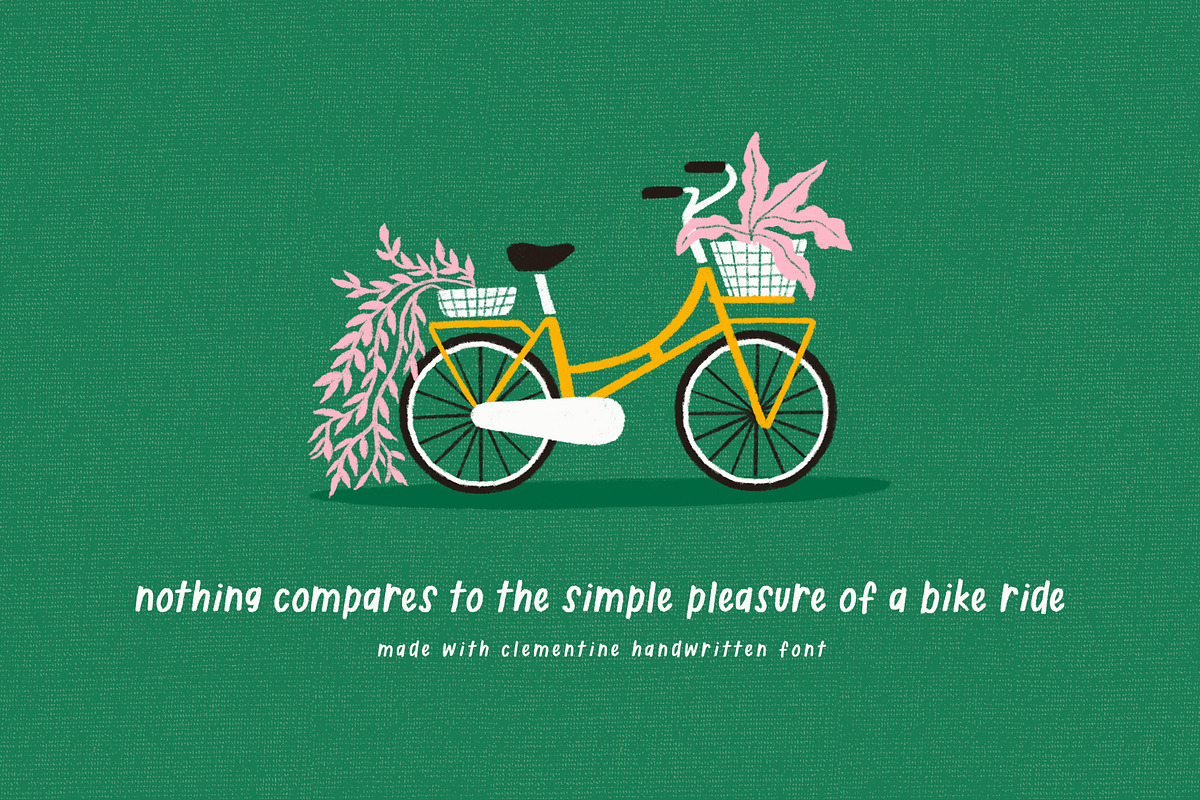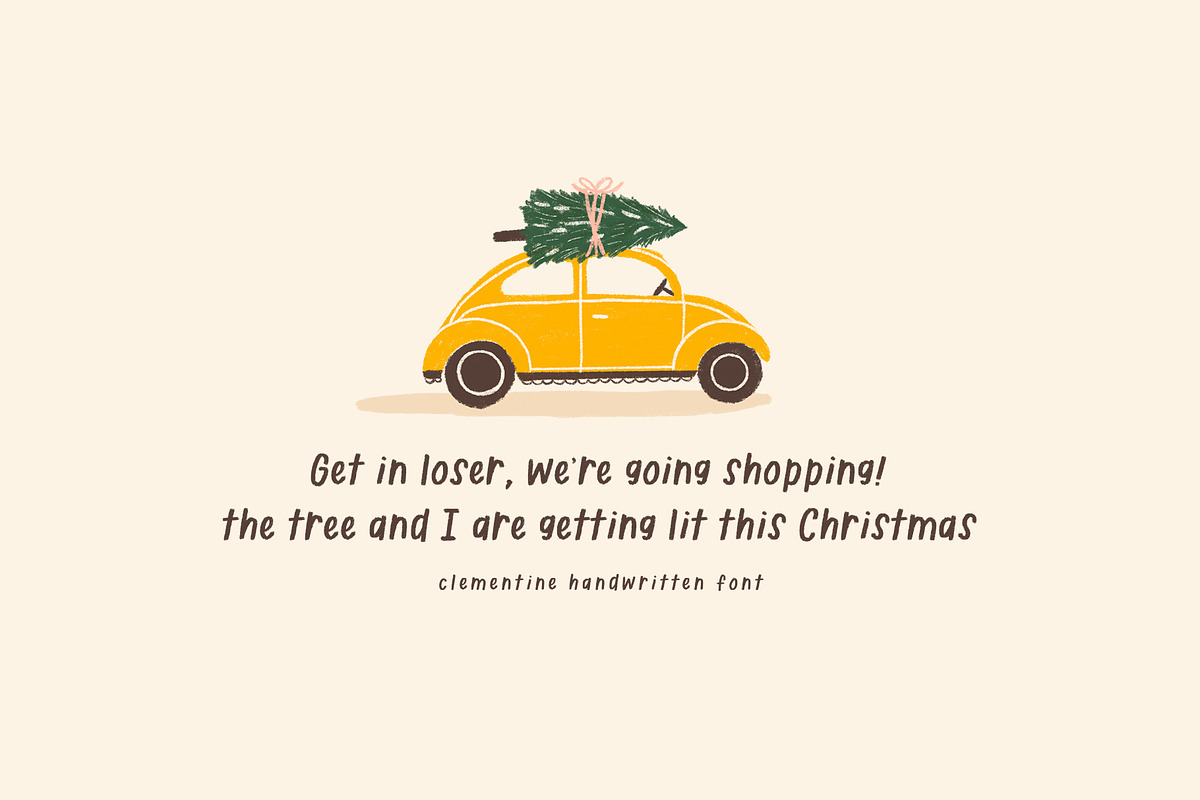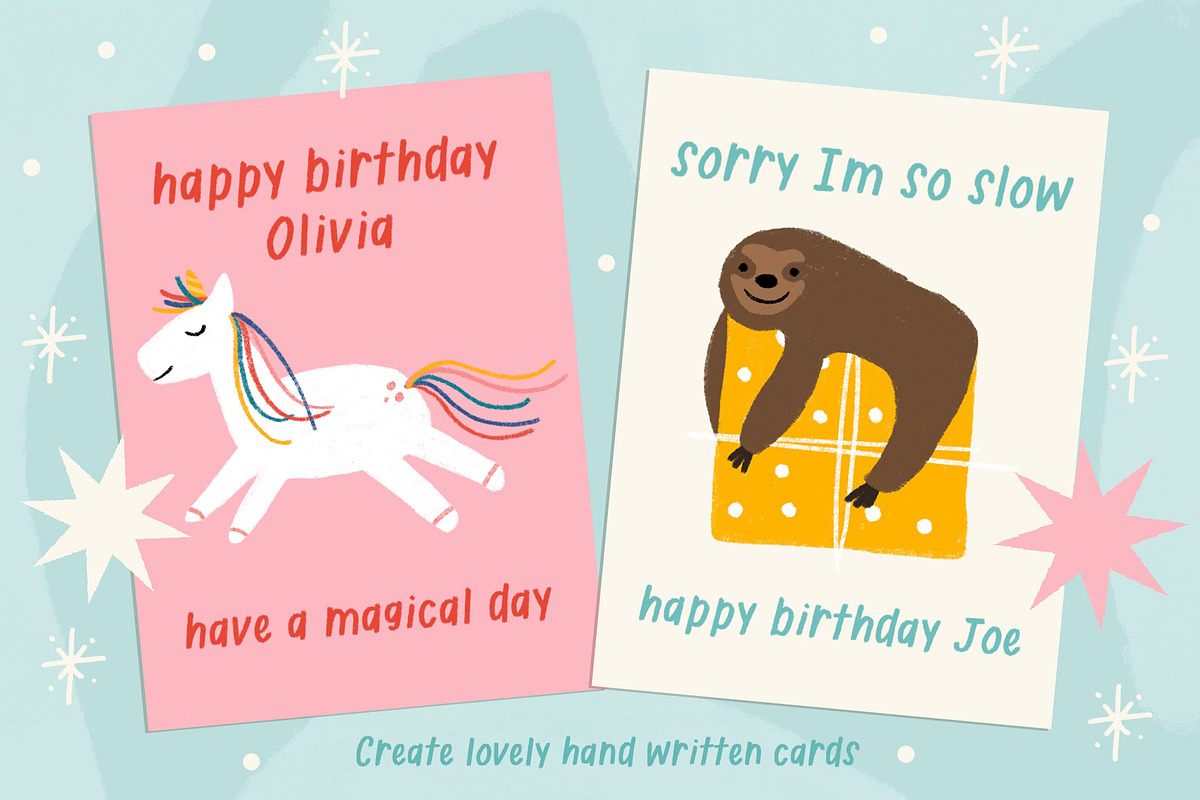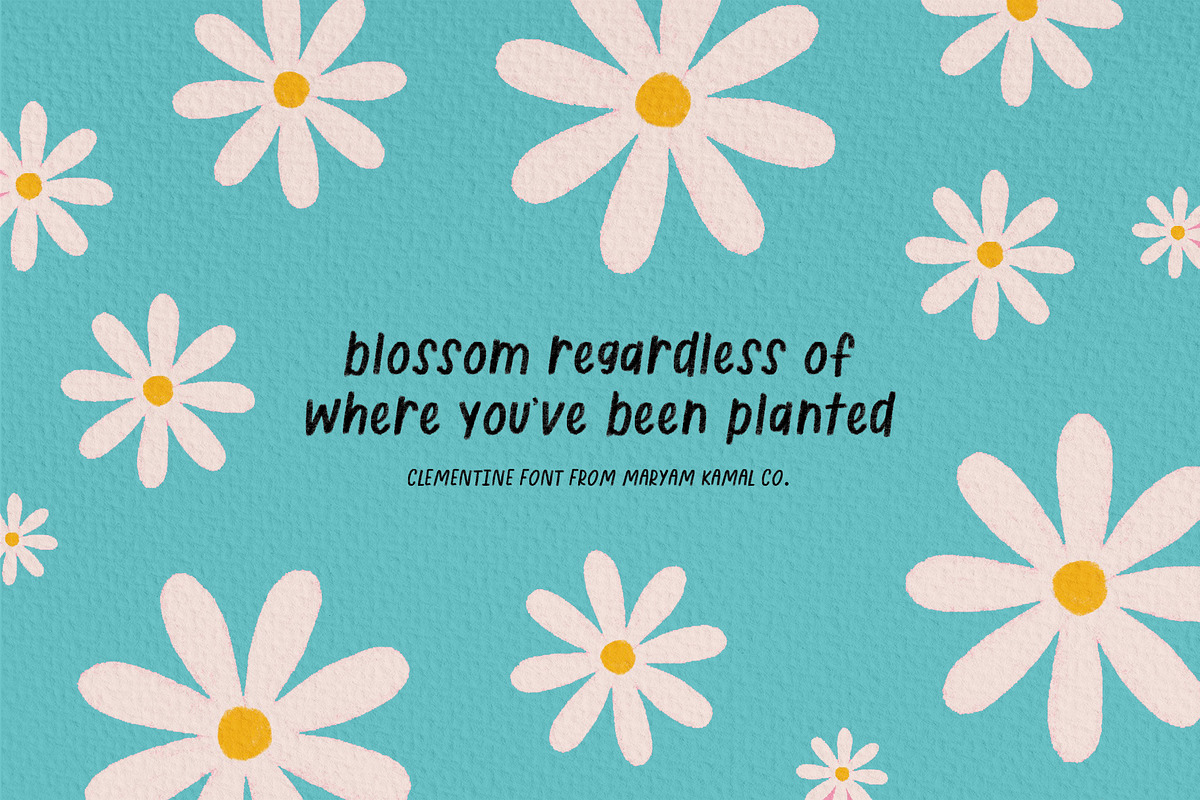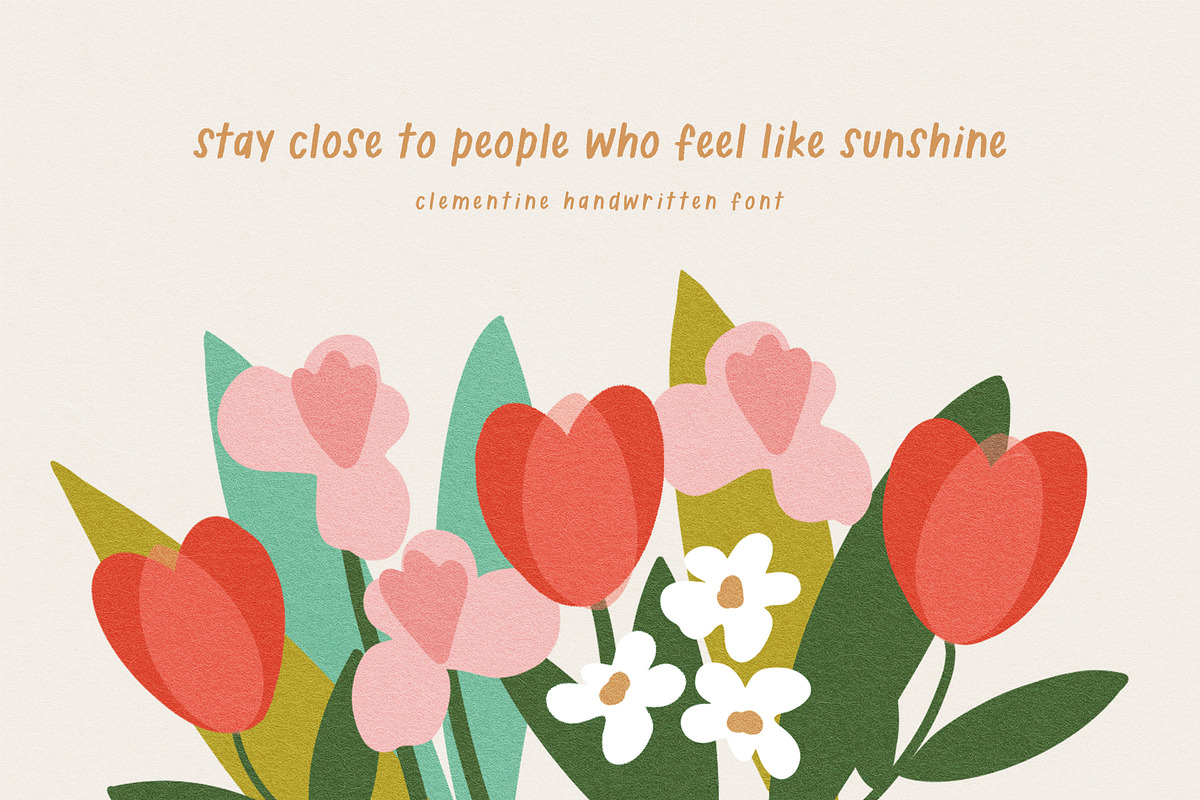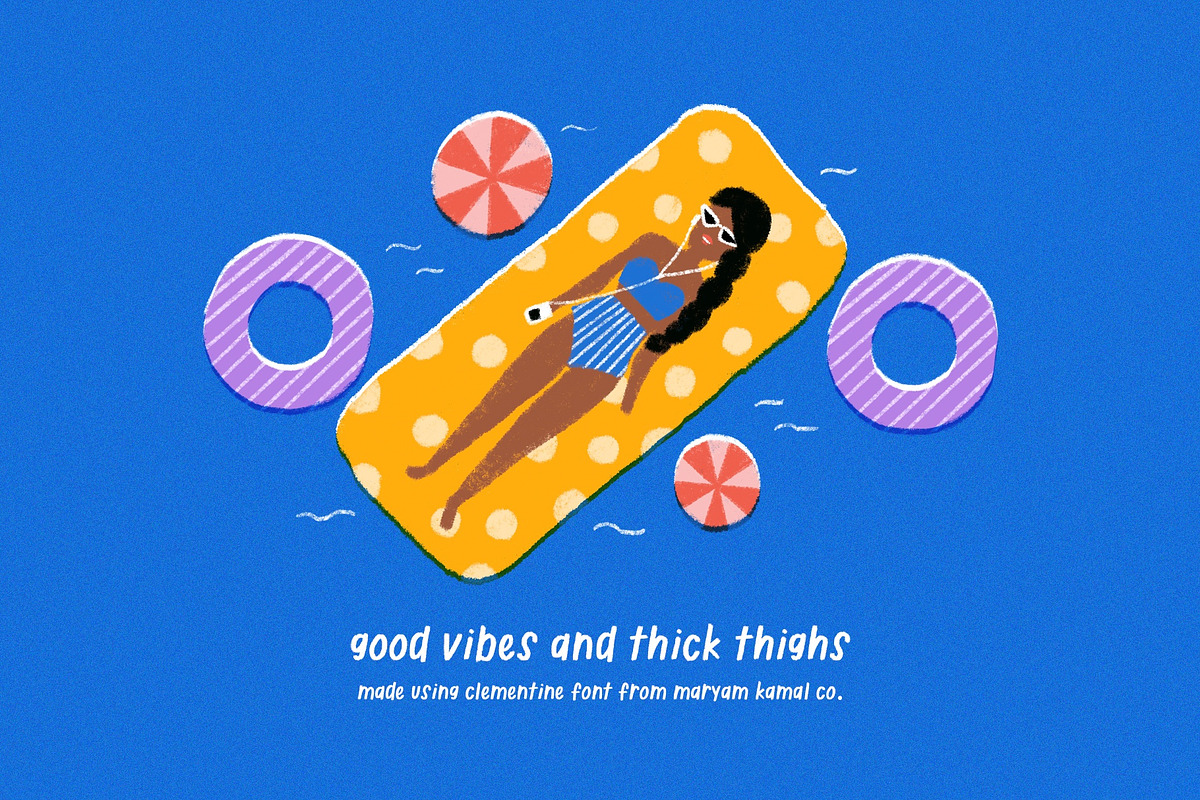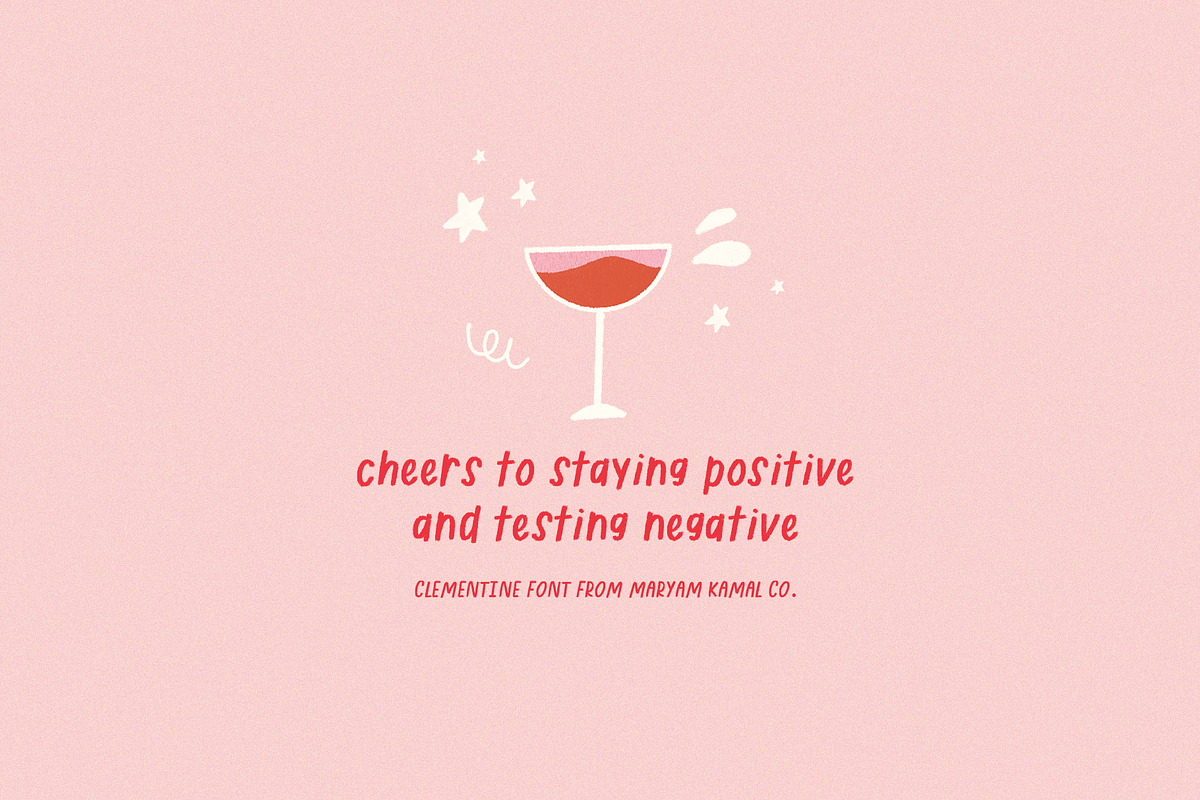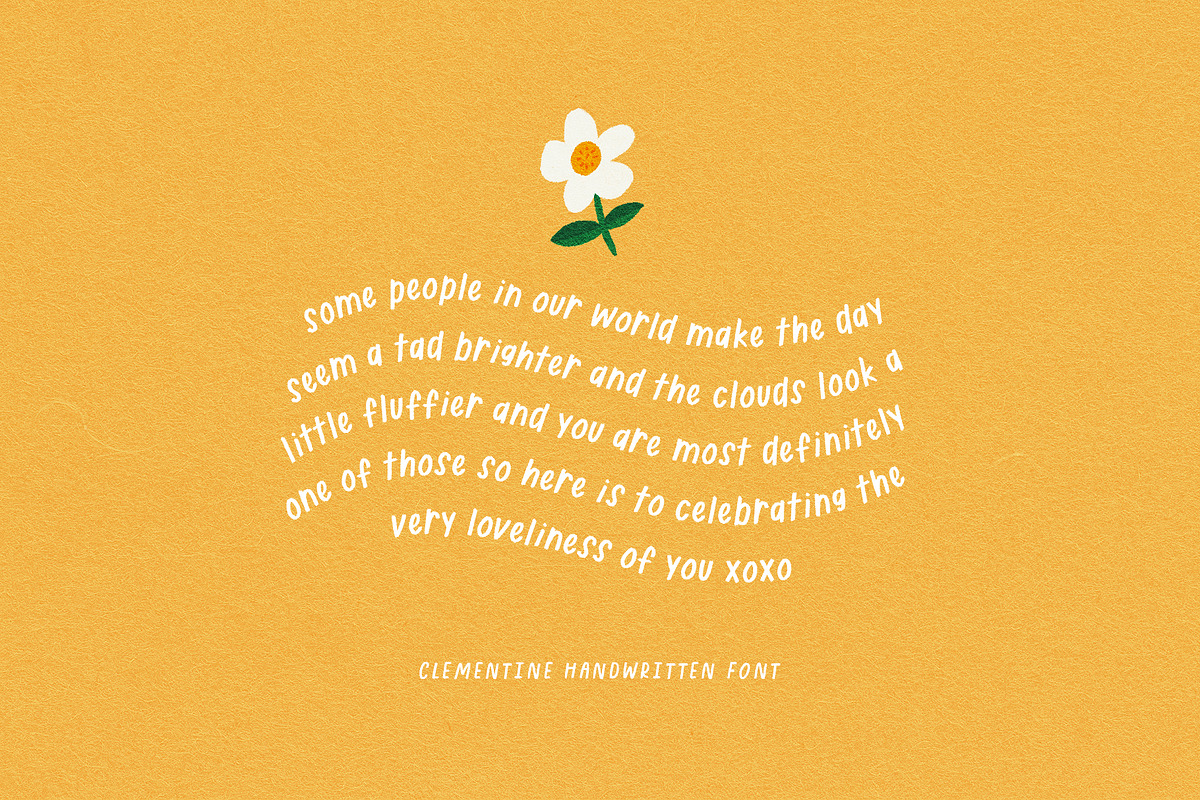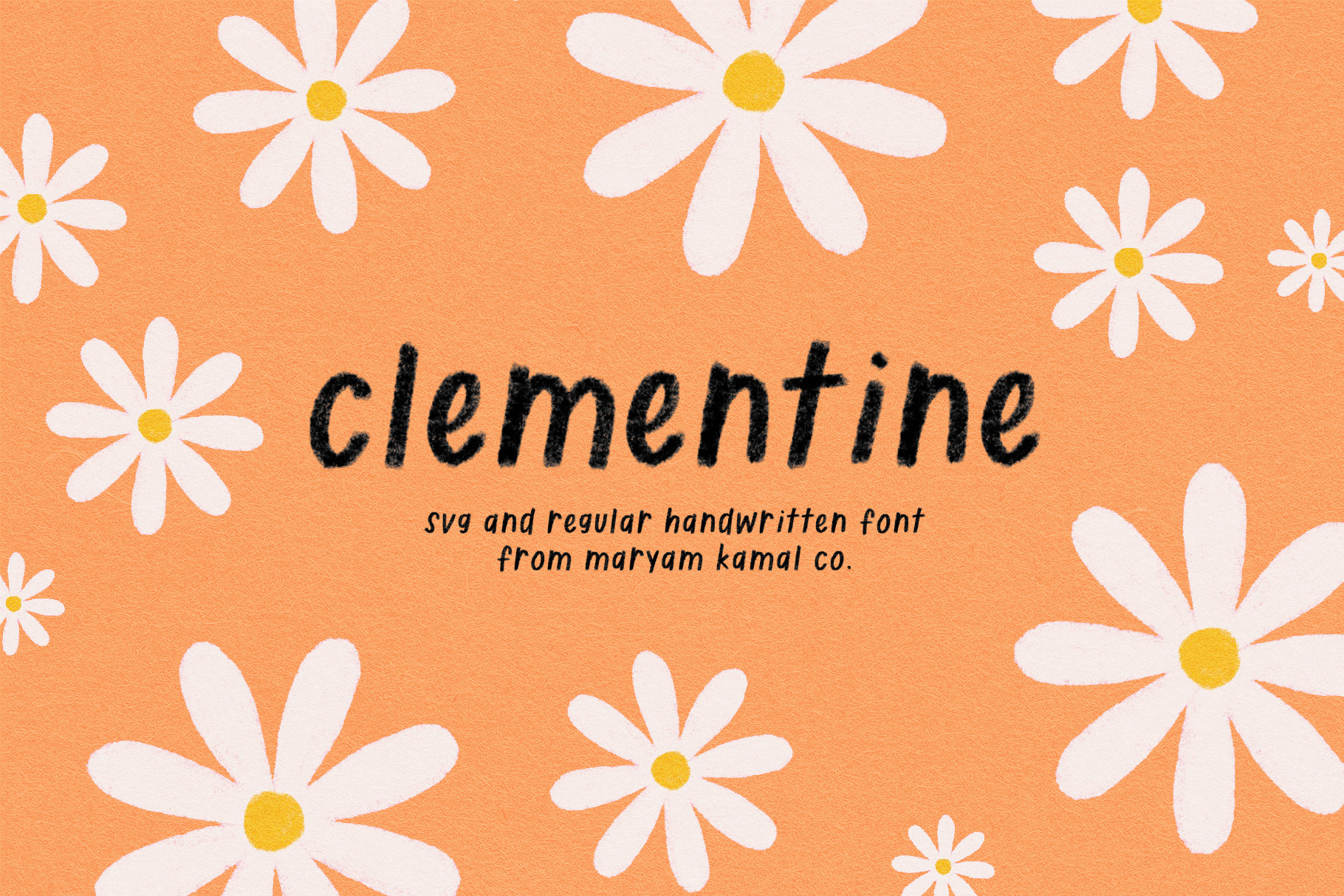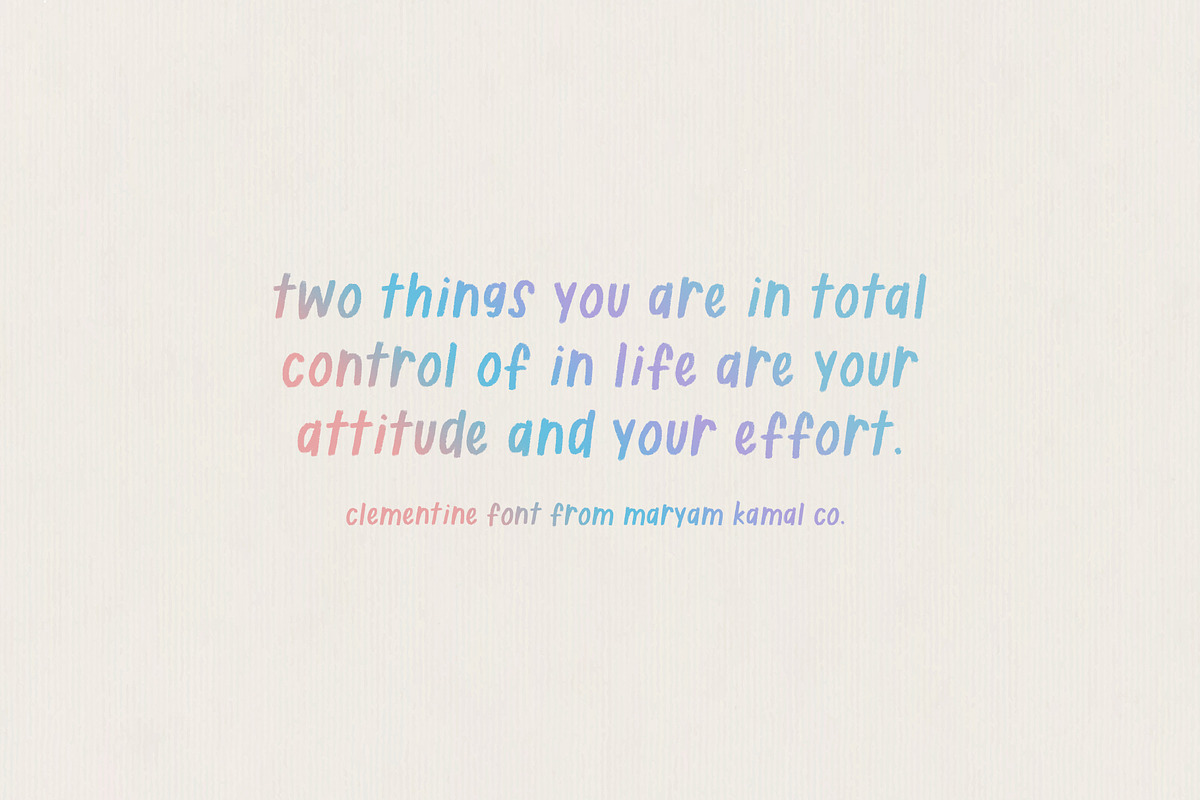
Clementine Handwritten Font
Introducing Clementine! A sweet, natural hand written font.
Inspired by adorable and carefree handwriting, the svg font comes with a pencil-like texture. A solid version with rough edges is also included.
I wanted to create something that was raw, authentic and carefree. Perfect for this holiday season! Create handwritten greeting cards, notes, quotes, social media posts, birthday cards with a personalized look.
Play around with the letter spacing. The font also looks great in all CAPS. Pair it with a simple, minimal illustration and voila!